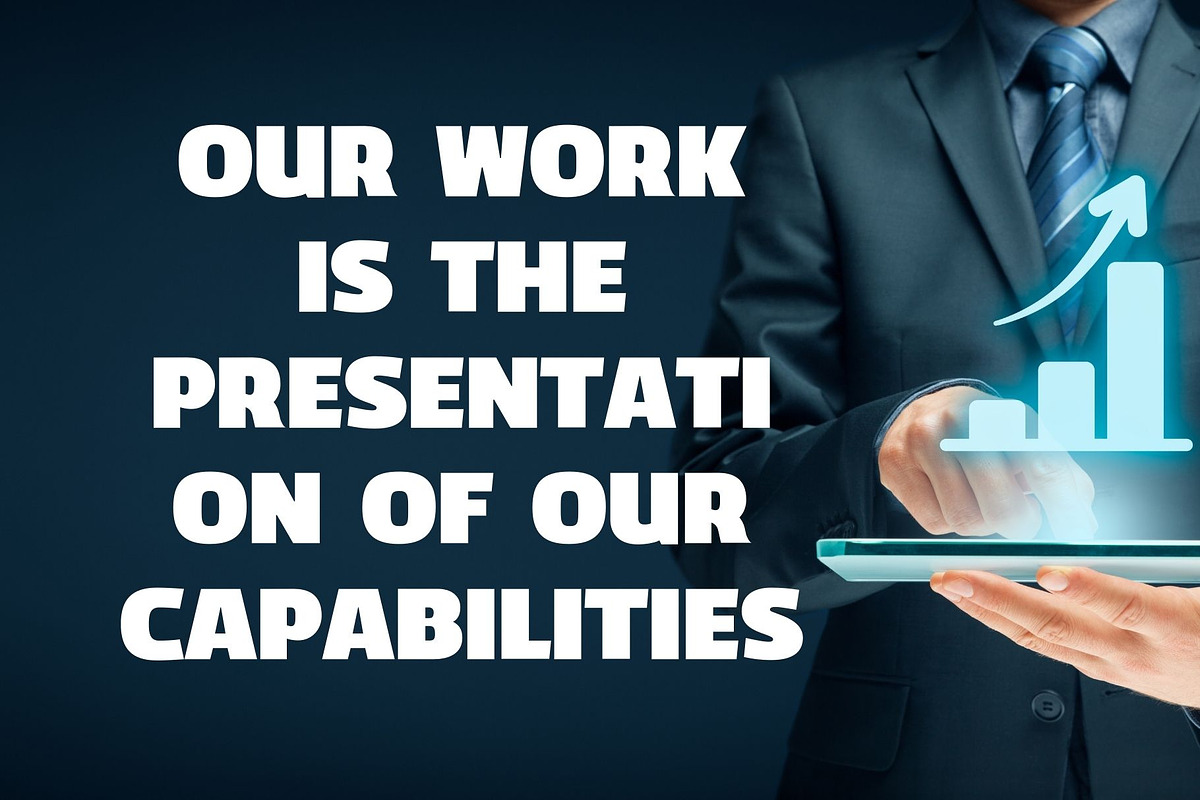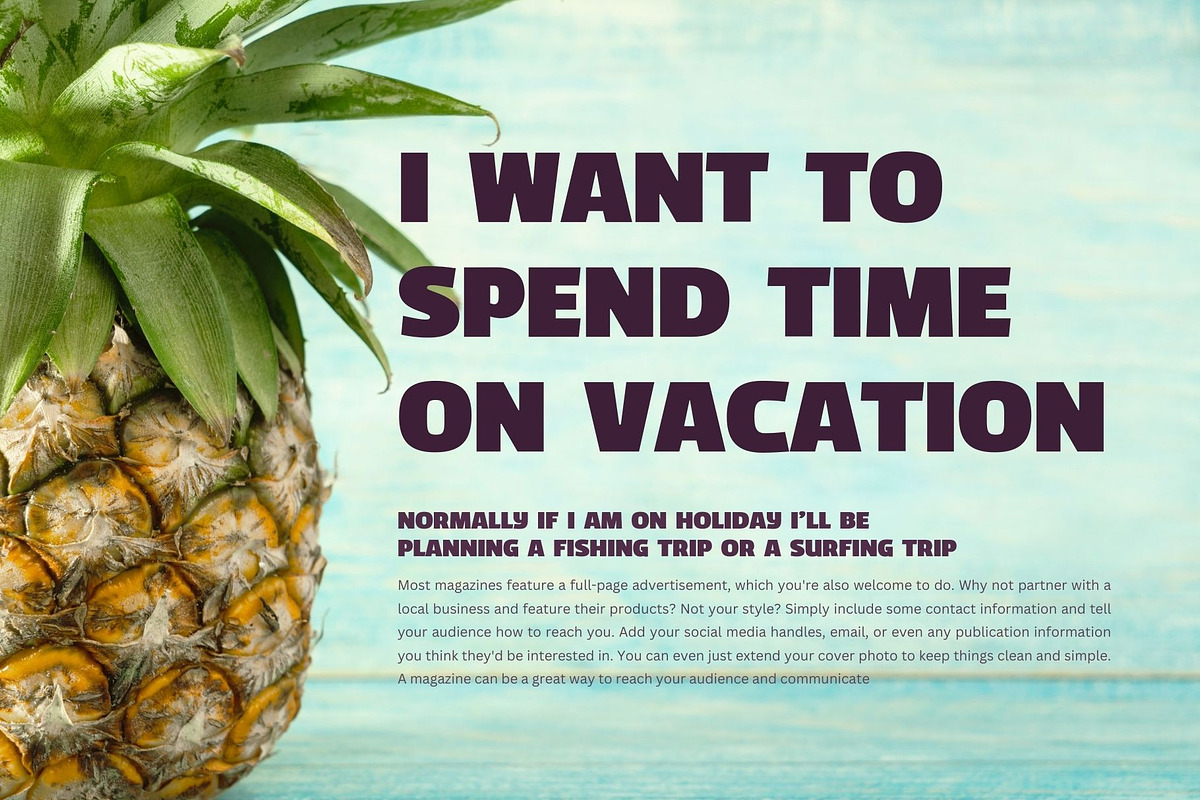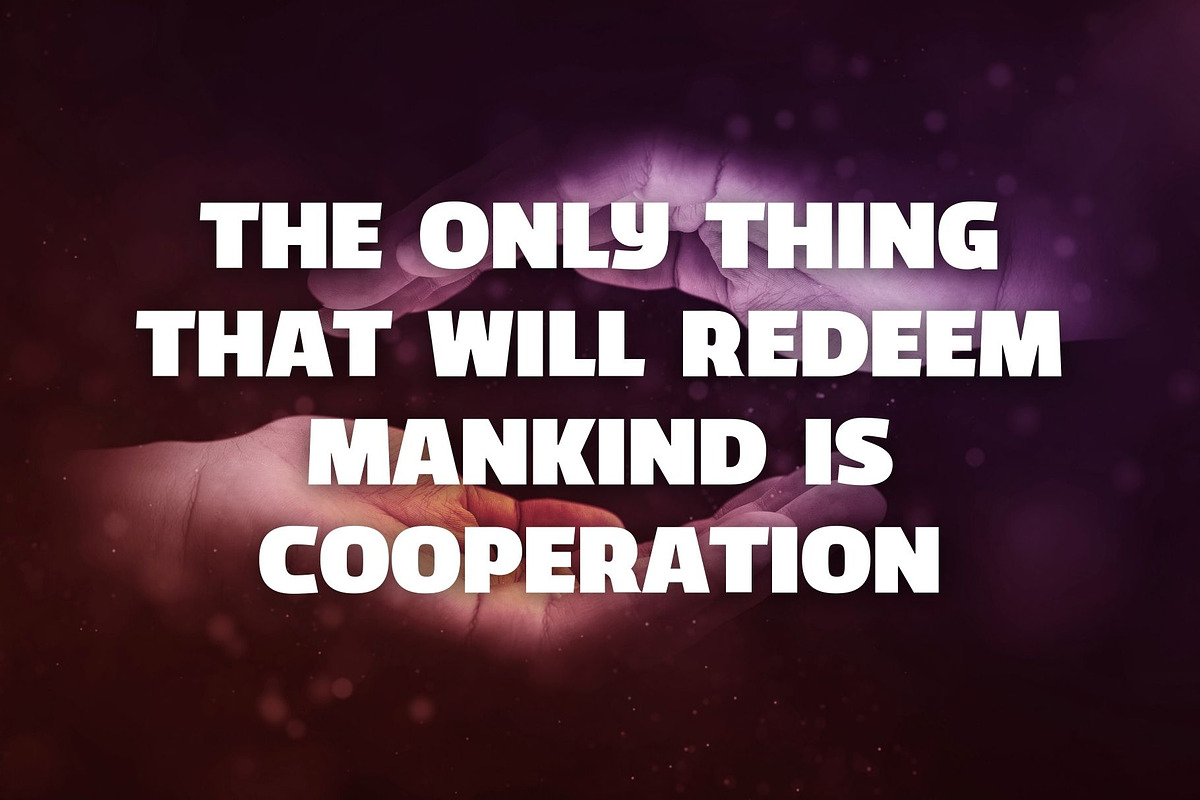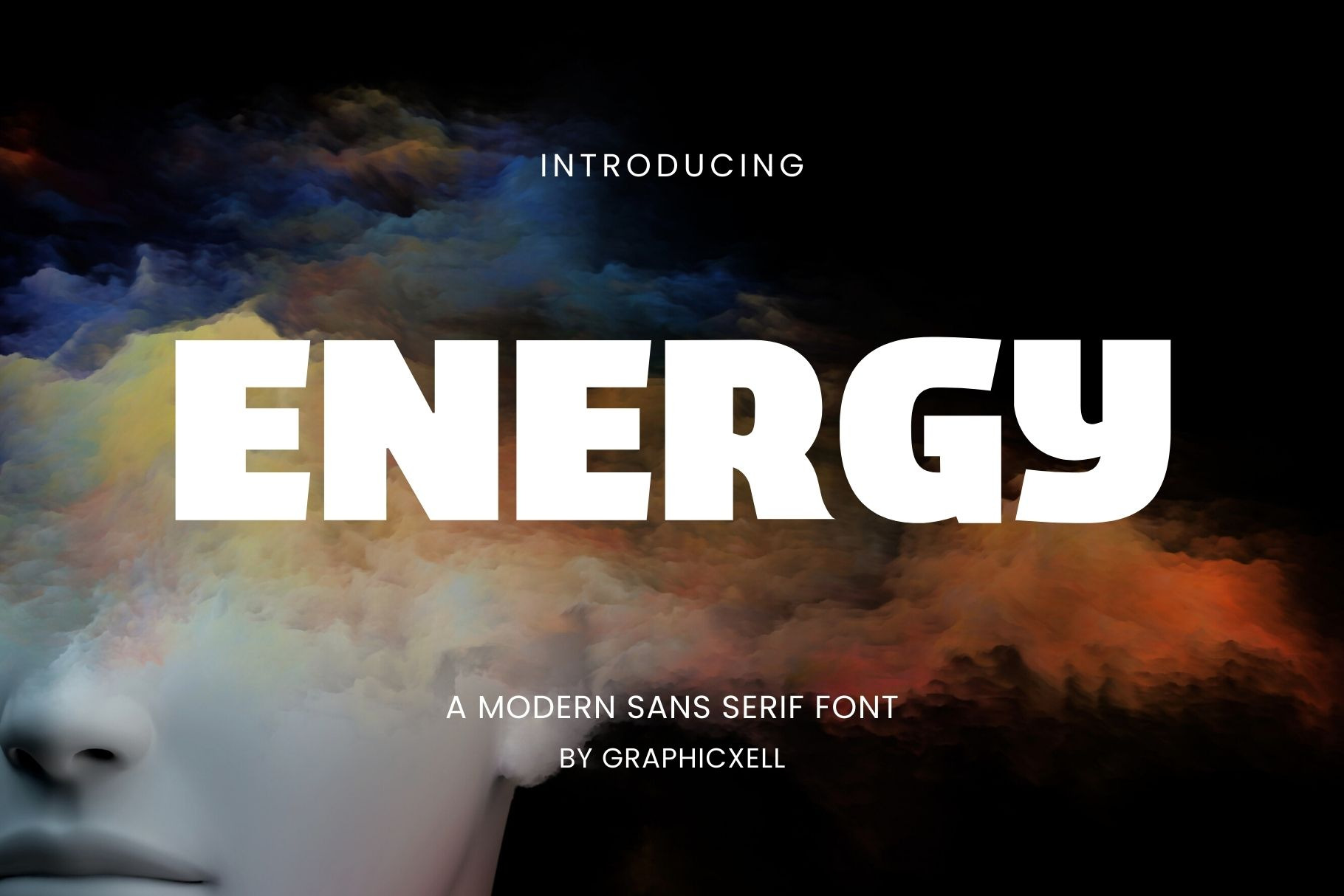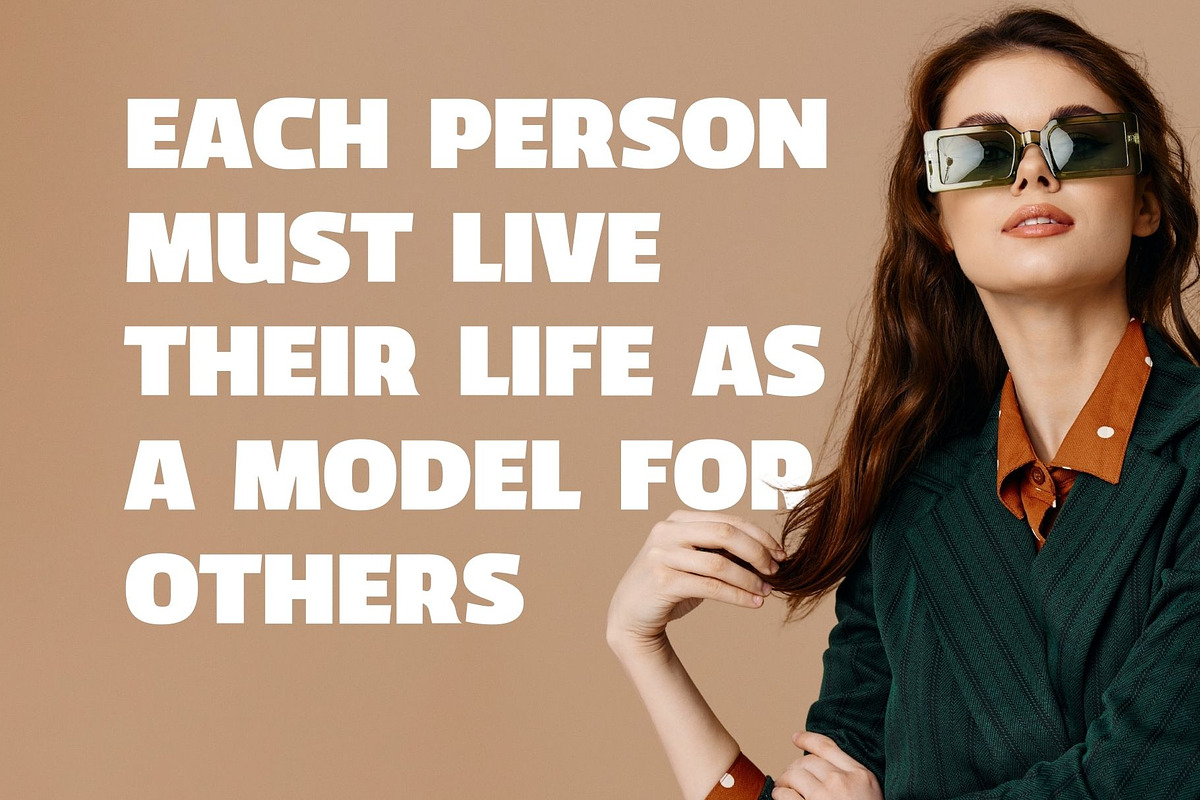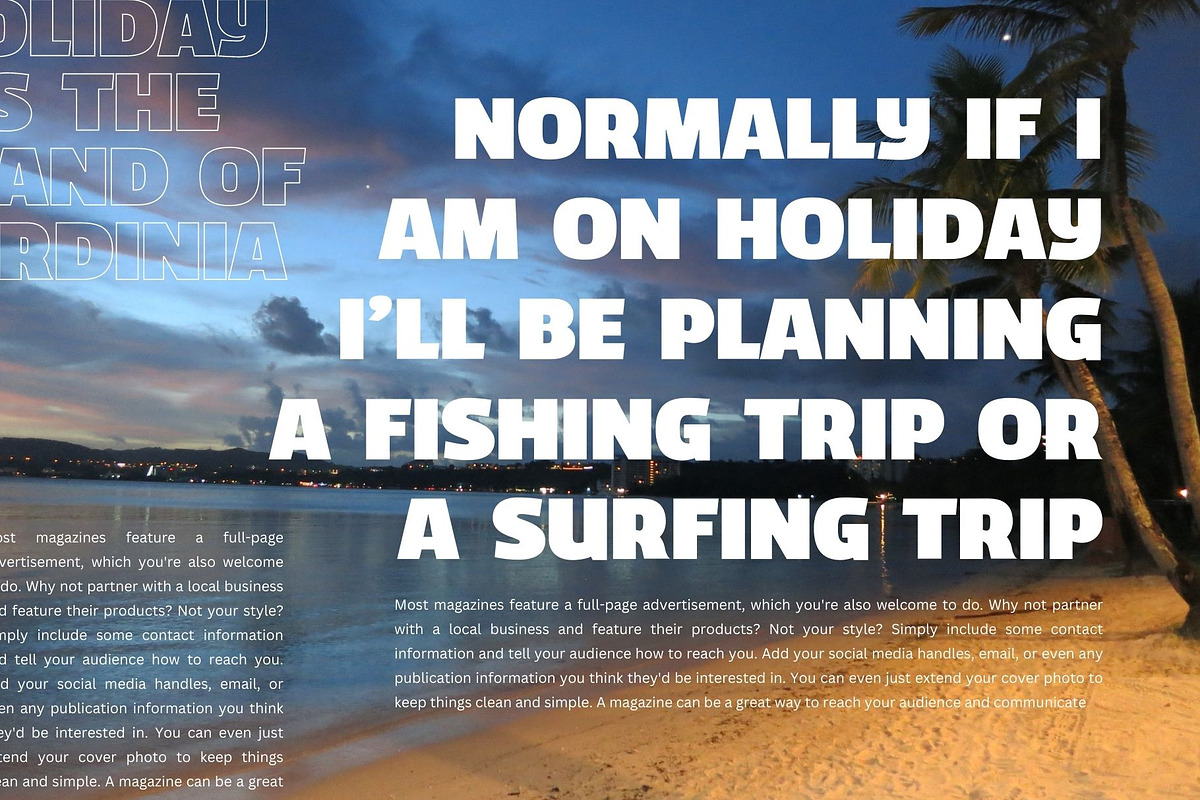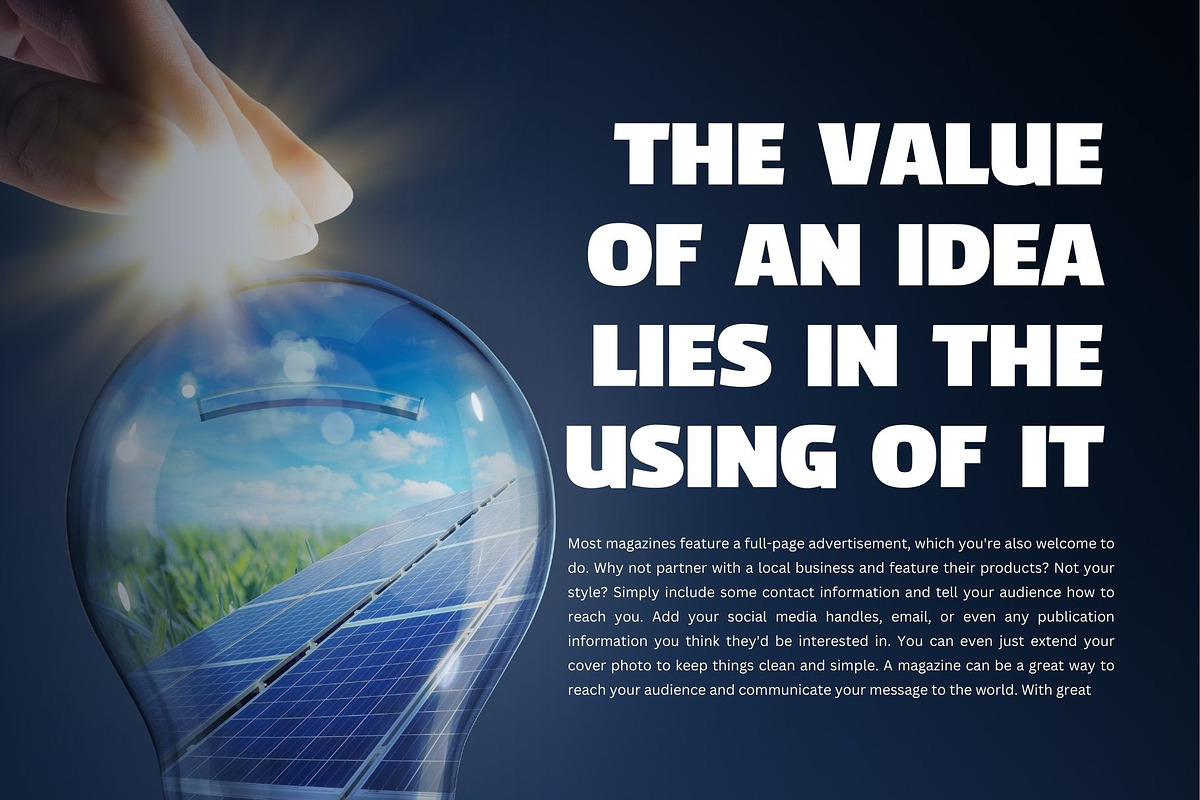
Energy Sans Serif Font
inspired by the famous minimalist logo perfect for the purposes of designing templates, brochures, videos, advertising branding, logos, invitation, layout design, elegant crafting, beauty design and more.